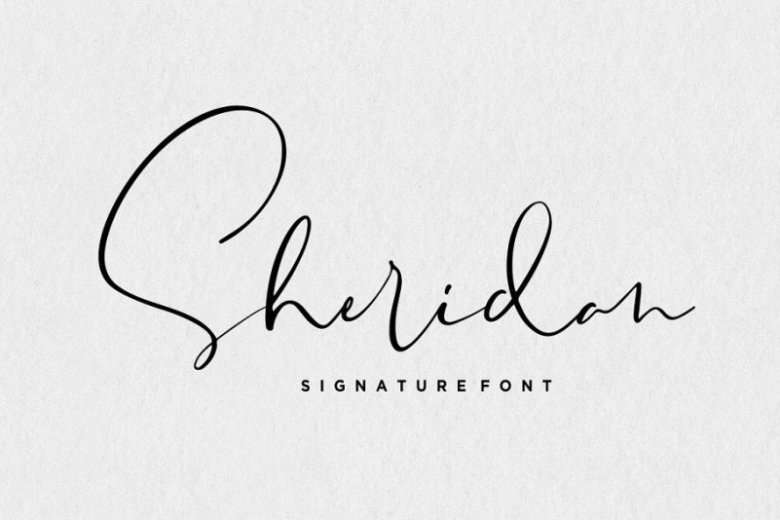
Sheridan Signature Font
A lovely natural handwriting font by Sronstudio. This is a modern signature font. It’s made by hand, so it similar to natural handwriting. This font is minimalist with hand-painted characters that have their own distinct characteristics that differ from previous font designs that carry confidence so that this font is very appropriate for you to put into your project designs! Introducing Sheridan Font. It’s a beautiful signature font perfect for branding, invitation, stationery, wedding designs, social media posts, advertisements, product packaging, product designs, label, photography, watermark, special events or anything.